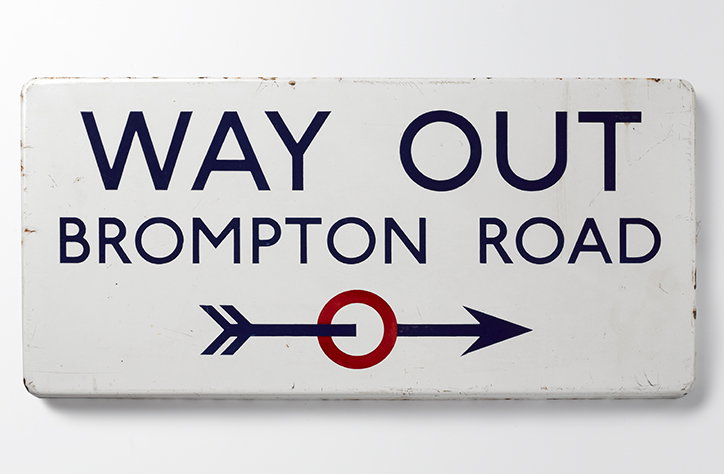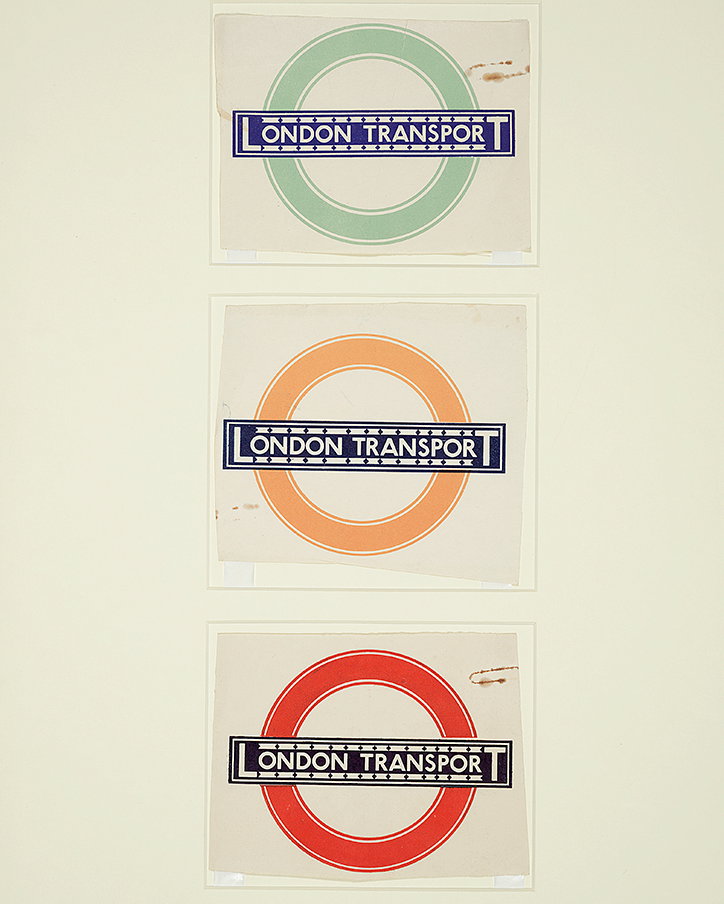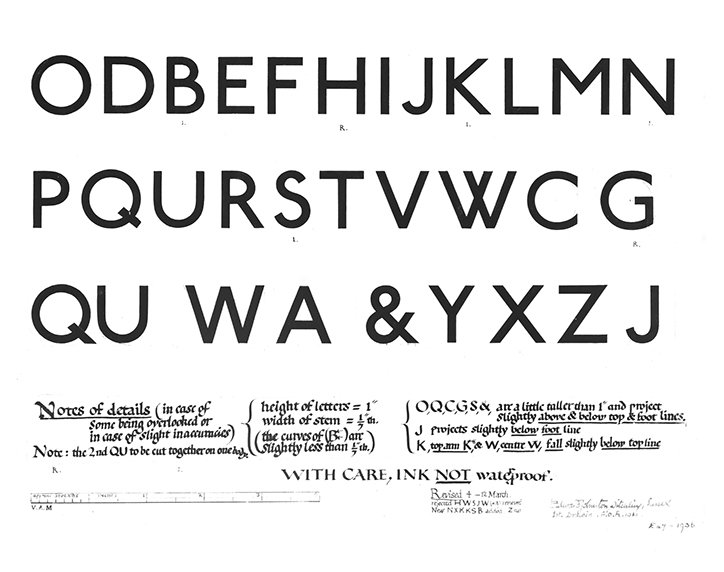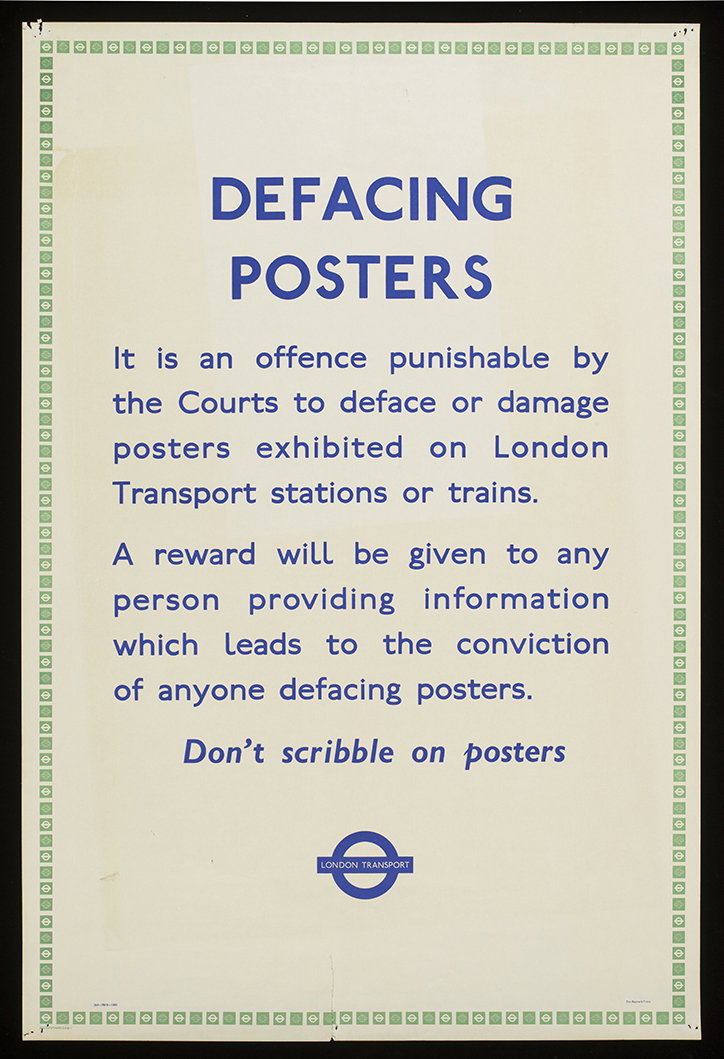
London Underground’s typeface: uncovering the designs that form “London’s handwriting”
Few pieces of design remain virtually unchanged for the best part of a century, but a certain typeface by Edward Johnston has achieved just that. Familiar to most Londoners, his Johnston Sans typeface has been used on the London Underground since 1916, and has only been moderated once, in 1979.
The typeface was commissioned in 1913 by Frank Pick, commercial manager for the London Underground Railway, who wanted a new font with “the bold simplicity of the authentic lettering of the finest periods and yet belonging unmistakably to the 20th Century,” says Ditchling Museum of Art + Craft, soon to display a show devoted to Johnston’s typeface. It’s a fitting site for such a show: Johnston created the letter system when living in the Sussex village working as a calligrapher.
When the First World War broke out, the rollout of the typeface was delayed. Though the designs were finished in 1916 and the wood-letter printing blocks created the following year, it was only in 1929 that Johnston’s type became visible across the capital. To this day, the forms are used as the foundations of all TfL signage and logo designs.
“The typeface has since become influential upon the visual identity of London as a whole and has been described as ‘London’s handwriting’,” says the museum. The exhibition will look at Johnston’s life and his role in the arts and crafts movement, and present two of Johnston’s original 1916 hand drawn designs of the alphabet from 1916 and proofs of the designs for the London Underground roundel.
Edward Johnston: Bulls Eye
Edward Johnston at his desk
Edward Johnston: Design for an alphabet, 1916
Edward Johnston: Defacing Posters